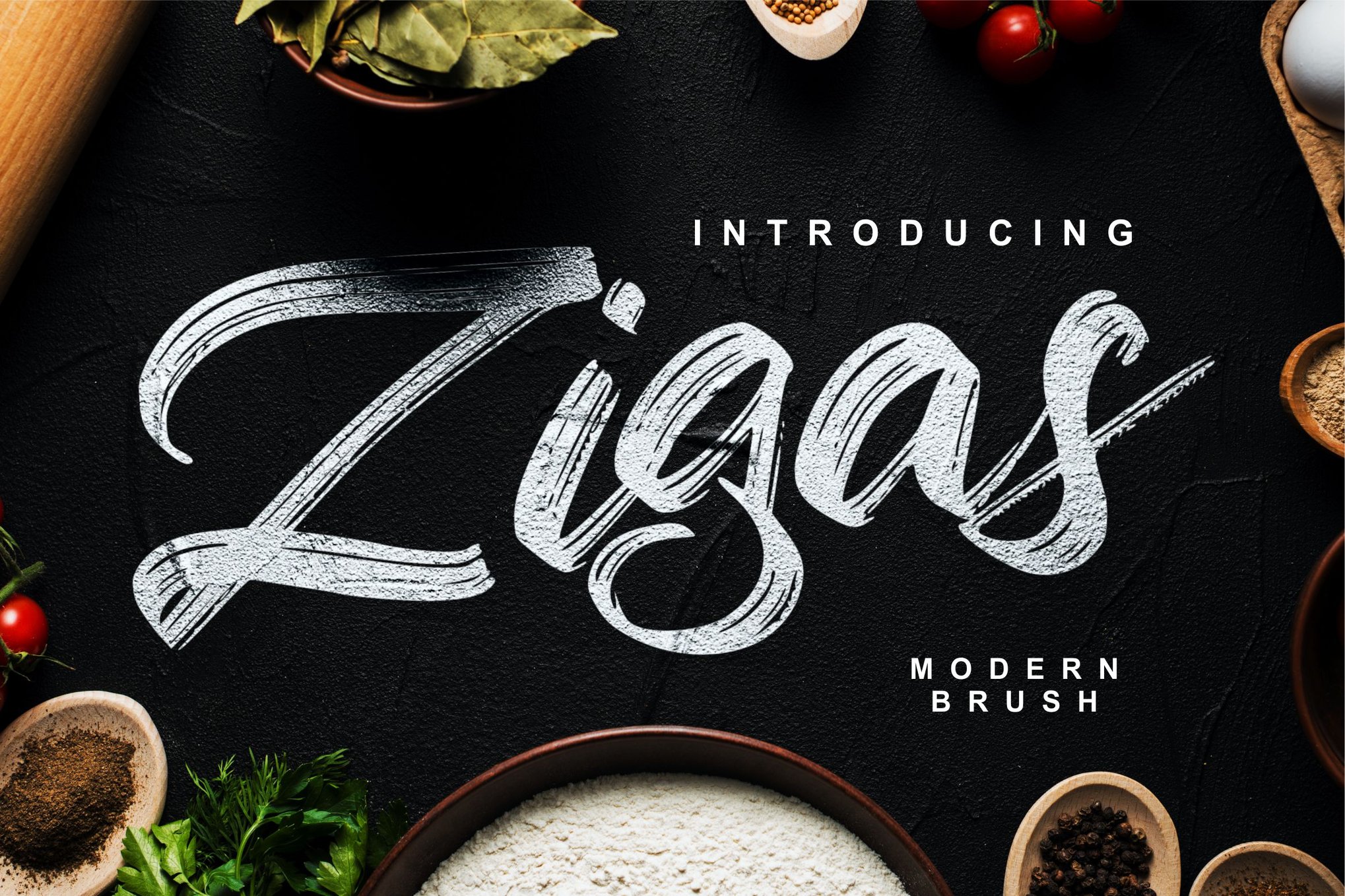
Zigas | Modern Brush Font
Zigas Modern Brush Font is perfect for contemporary artistic branding, creative studio identities, modern lifestyle campaigns, dynamic social media graphics, trendy restaurant signage, creative workshop materials, urban street art projects, and expressive brand communications.
What makes Zigas Modern Brush Font exciting is its dynamically contemporary character that captures the raw energy and artistic spontaneity of modern brush painting through boldly expressive letterforms that seem painted with confident strokes and creative passion. The font features fluid brush textures with contemporary styling that reflects the intersection of traditional brush techniques and modern artistic expression, creating typography that pulses with creative energy and contemporary flair. Its artistic authenticity and modern appeal make it perfect for brands that want to communicate creative confidence, contemporary style, and the kind of artistic energy that resonates with modern creative audiences while creating memorable experiences that celebrate the power of expressive art and contemporary creativity.
Zigas Modern Brush Font family includes various dynamic brush weights such as Light, Regular, and Bold variations, often featuring contemporary alternates and artistic decorative elements. The family may include creative symbols, modern ornaments, and expressive ligatures that enhance the font's contemporary aesthetic, providing designers with comprehensive options for creating powerful typographic compositions that capture the essence of modern brush artistry and creative expression.
This dynamically modern typeface has gained recognition among creative brands and contemporary art organizations seeking authentic brush typography solutions that reflect modern artistic values and creative innovation. Zigas Modern Brush Font Free Download provides an excellent opportunity to paint with this contemporary brush font before investment. The font's character set includes artistic symbols and modern-inspired glyphs that work perfectly for creative and contemporary design industry applications. Whether you're designing for art galleries, creative agencies, or modern lifestyle brands, Zigas Modern Brush Font delivers the artistic energy your project requires. Its versatile nature makes it suitable for various creative applications including design studios, contemporary restaurants, artistic workshops, and modern lifestyle companies, ensuring your typography choices communicate creative dynamism and contemporary artistry while creating memorable brand experiences that celebrate the vibrant intersection of traditional brush techniques and modern creative expression through its distinctively dynamic and authentically contemporary visual character.